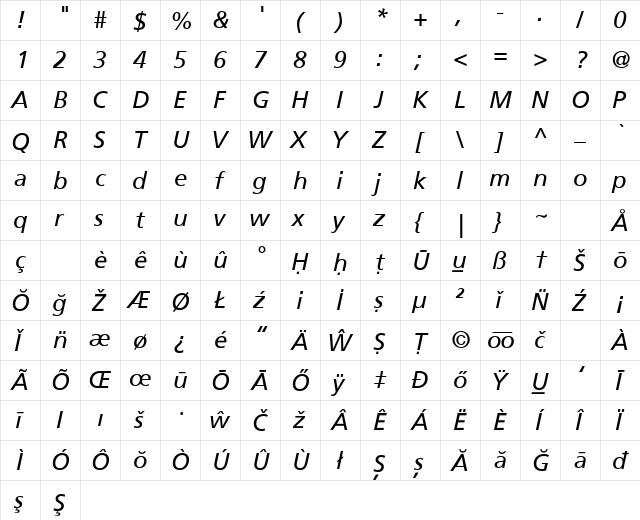
Frutiger SAIN It v.1 Italic
Design Context for Frutiger SAIN It v.1 Typeface
Frutiger SAIN It v.1 is a composed and adaptable typeface that performs quietly and consistently across a wide range of design contexts. The slanted form adds forward momentum and visual energy.
Pro Tip: Try Frutiger SAIN It v.1 for annotation and caption copy alongside an upright companion — the contrast in angle creates a dynamic but ordered typographic system.